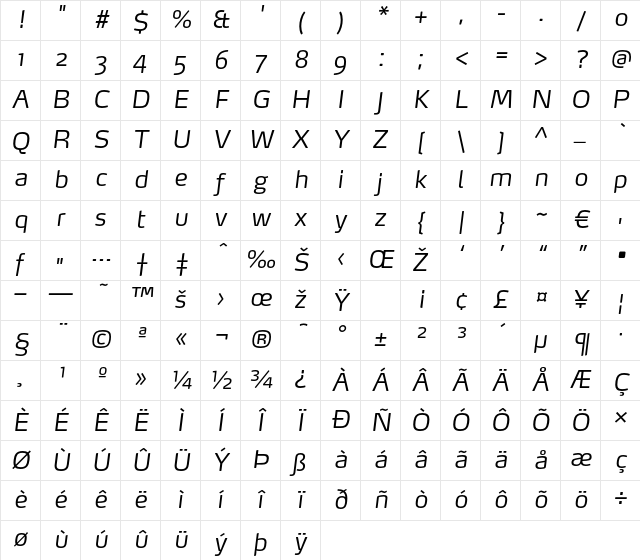
Max-LightItalic Regular Free Font
Max-LightItalic Regular
Complete Max-LightItalic Regular glyph index. Displaying only characters natively supported by Max-LightItalic Regular font.
Design Context for Max-LightItalic
Max-LightItalic is a composed and adaptable typeface that performs quietly and consistently across a wide range of design contexts. The slanted form adds forward momentum and visual energy. Its slender proportions lend an understated elegance to any composition.
Pro Tip: Use Max-LightItalic for emphasis, pull quotes, and subheadings where its slanted energy can add rhythm to the layout.